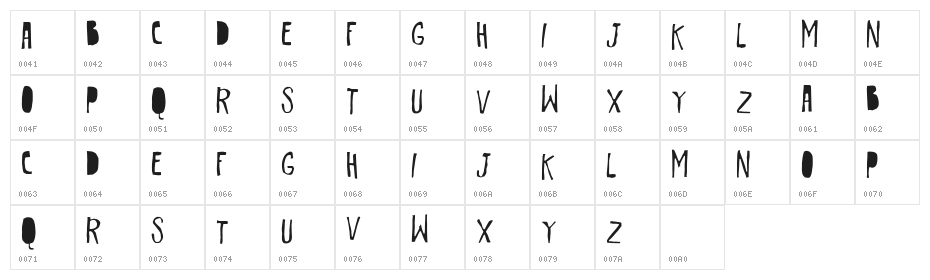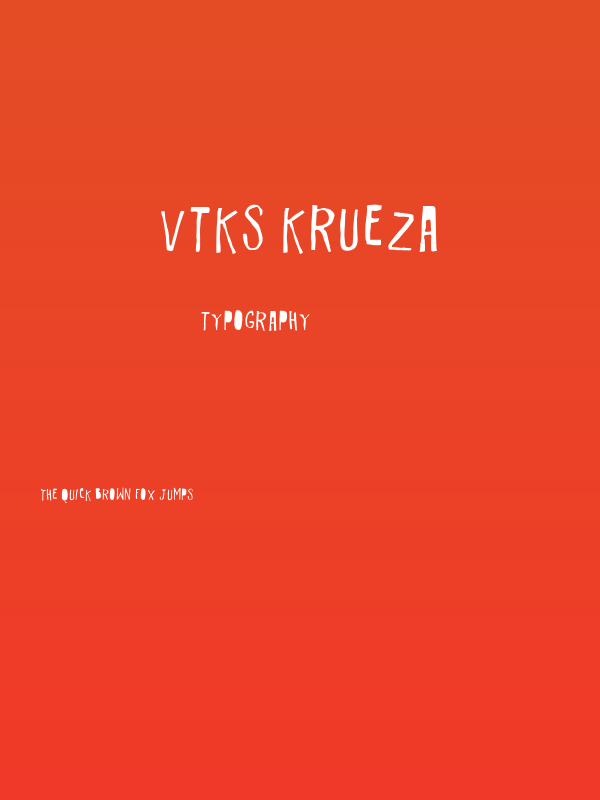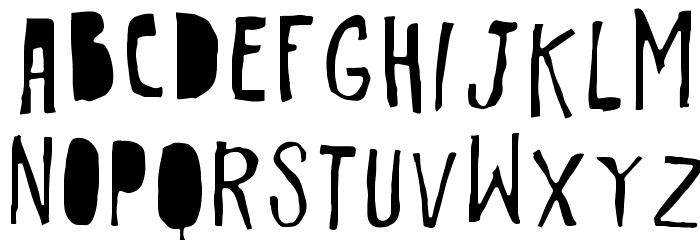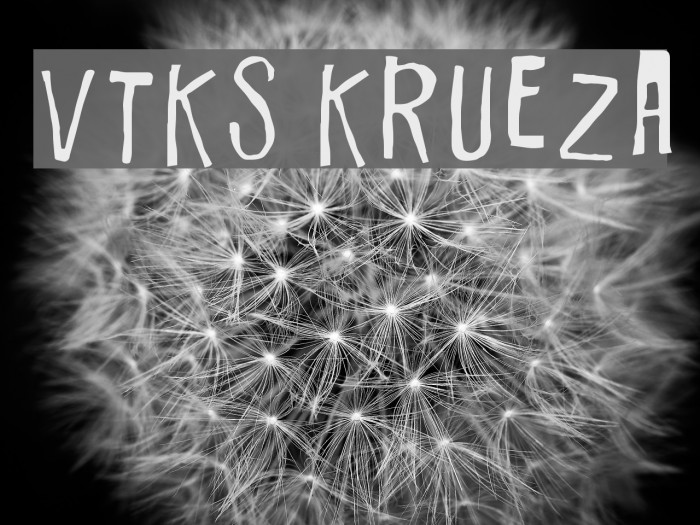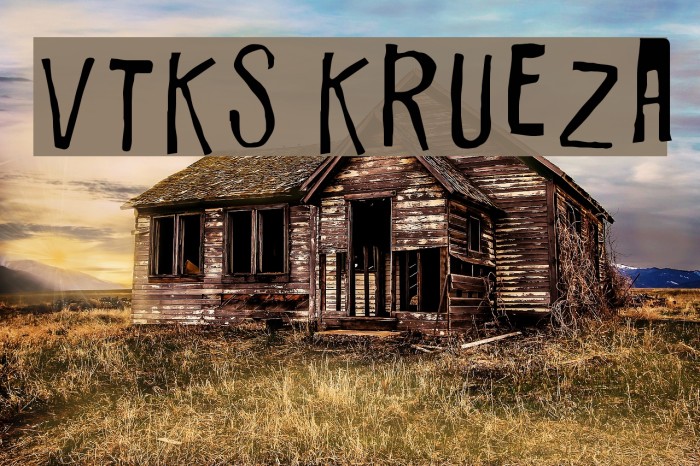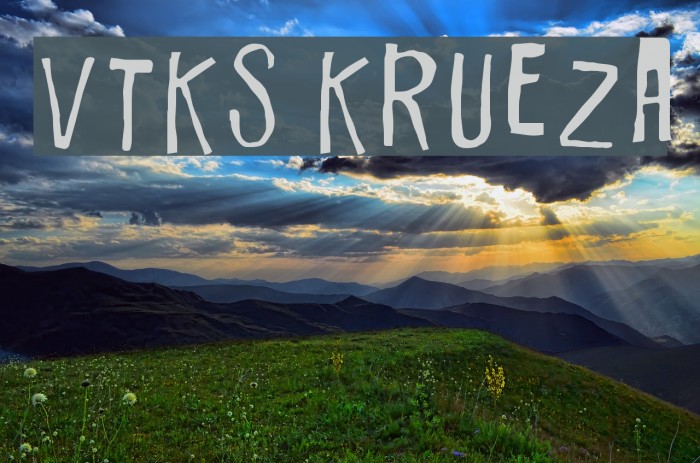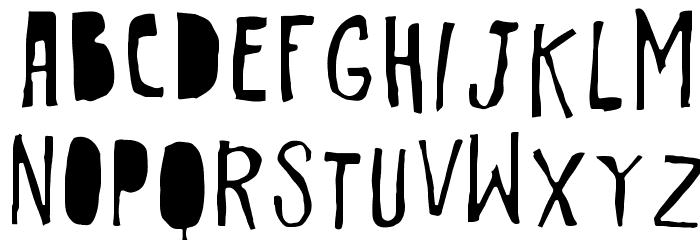
Vtks Krueza Font
Vtks Krueza Description
This font features a bold and quirky design with a hand-drawn aesthetic. The letters are uneven and irregular, giving it a playful and artistic feel. The uppercase letters are particularly bold, with some characters like 'O' and 'P' having unique, exaggerated shapes. The lowercase letters maintain the same whimsical style, with varying heights and widths. The numbers and special characters follow the same artistic theme, making this font ideal for creative and informal projects.
| Overall Style | Artistic, Playful |
| Use Case | Headlines, Posters, Creative projects |
| Proposed Projects | Ideal for posters, album covers, children's books, and creative branding projects. |